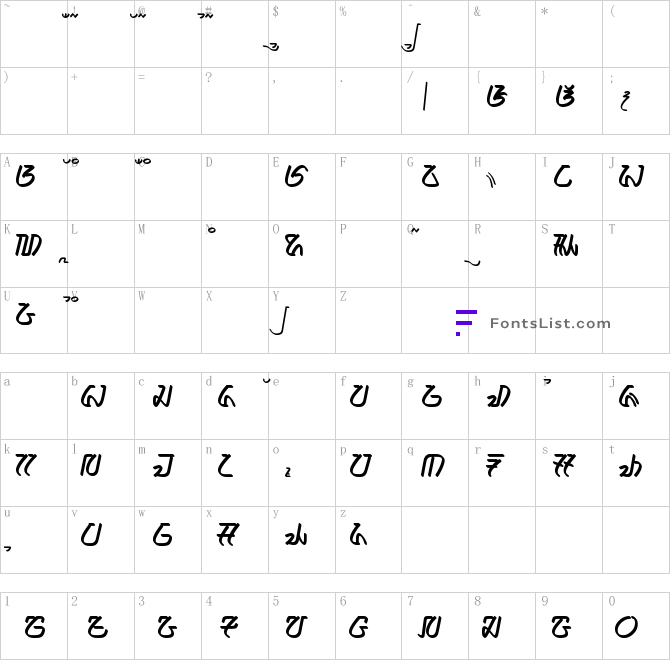
- Font Name:ananda - aksara sunda
- Full Name:ananda - aksara sunda
ananda-aksara-sunda.ttf is a very beautiful artistic font, ananda-aksara-sunda.ttf is widely used in the design and printing of various books and pictures,ananda-aksara-sunda.ttf has a strong visual impact,ananda-aksara-sunda.ttf is a commonly used font in newspapers, magazines and books, and is used in posters, e-commerce Poster design, store design, logo design, font design and other fields.ananda-aksara-sunda.